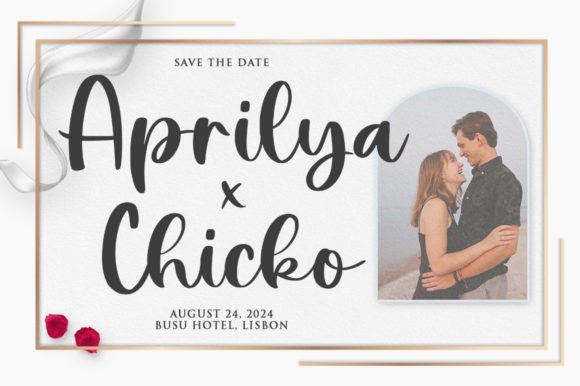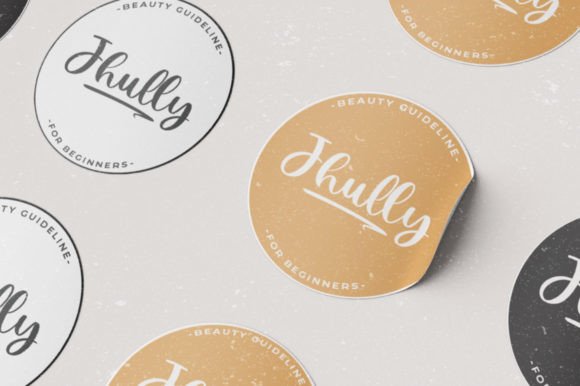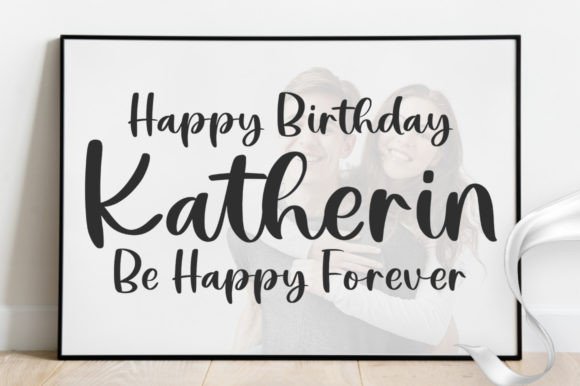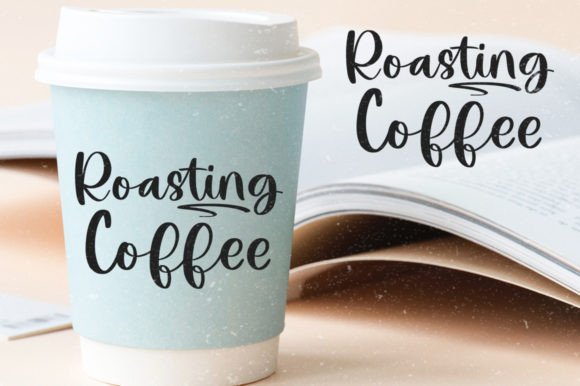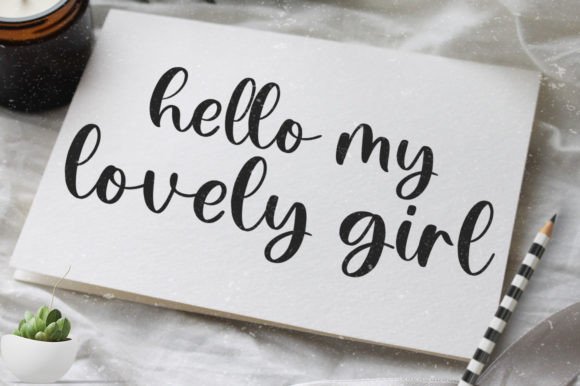
Falling for the Perfect Font
As designers, we’ve all been there – staring at a blank canvas, trying to bring our creative vision to life. It’s in these moments that the perfect font can make all the difference. The gentle swoop of a handwritten script, the elegance of a classic serif, or the modernity of a sans-serif can elevate our designs from mere mortal to masterpiece.
| 📌 Product Name | Falling in Love Font |
For those who crave a font that’s both timeless and trendy, look no further than the Falling in Love Font. This beautiful, handwritten font effortlessly blends traditional calligraphy with a contemporary twist, making it perfect for invitations, branding, and other creative projects where a touch of refined beauty is desired. With its PUA encoding, designers can access all the amazing glyphs and ligatures with ease, making it a valuable addition to any design toolkit.
Falling in Love Font Key Features
- Font Family: Falling in Love Font is a script font, ideal for creating elegant and romantic designs.
- Character Set: The font includes a wide range of characters, including uppercase and lowercase letters, numbers, and punctuation marks.
- Unique Characteristics: Falling in Love Font features flowing connections between letters, giving it a handwritten feel.
Falling in Love Font Review
I’ve had the chance to work with the “Falling in Love Font” and I have mixed feelings about it. ✨ On the one hand, the font has a beautiful, handwritten quality that makes it perfect for romantic and whimsical designs. The connected letters and flourishes add a touch of elegance that’s hard to resist.
However, there are a few limitations to consider. ⚠️ The font may not be the best choice for longer blocks of text, as the irregular letterforms and varying line spacing can make it difficult to read. Additionally, the font’s style may not be suitable for all audiences, particularly those who prefer a more modern or minimalist aesthetic.
Overall, I think the “Falling in Love Font” is a great choice for special occasions or projects that require a touch of romance. It’s perfect for wedding invitations, birthday cards, or any other design that needs a little extra love.
Here are some key pros and cons to keep in mind:
- ✨ Beautiful, handwritten quality
- ✨ Perfect for romantic and whimsical designs
- ⚠️ Not ideal for longer blocks of text
- ⚠️ May not be suitable for all audiences
Falling in Love Font: A Practical Application Guide
Tips for Getting the Most Out of the Falling in Love Font
Use the Falling in Love Font to add a touch of whimsy and romance to your designs.
Pair the font with other playful and elegant fonts to create a unique and eye-catching look.
Experiment with different font sizes and styles to achieve the desired level of whimsy and romance.
The Falling in Love Font is perfect for:
Valentine’s Day and anniversary cards
Romantic social media posts and captions
Playful and whimsical branding and marketing materials
Alternatives to Falling in Love Font
Great Vibes is a beautiful, elegant script font that works well for creating a romantic and whimsical atmosphere. It is perfect for wedding invitations, quotes, and other designs that require a touch of elegance. Compared to Falling in Love Font, Great Vibes is more refined and less ornate, making it a great choice for designers who want a more sophisticated look.
Cupid
Cupid is a classic, romantic font that is reminiscent of the traditional Valentine’s Day imagery. It is ideal for designs that require a playful and flirtatious tone, such as Valentine’s Day cards, love letters, and other romantic designs. Unlike Falling in Love Font, Cupid has a more traditional and nostalgic feel, making it a great choice for designers who want to evoke a sense of old-fashioned romance.